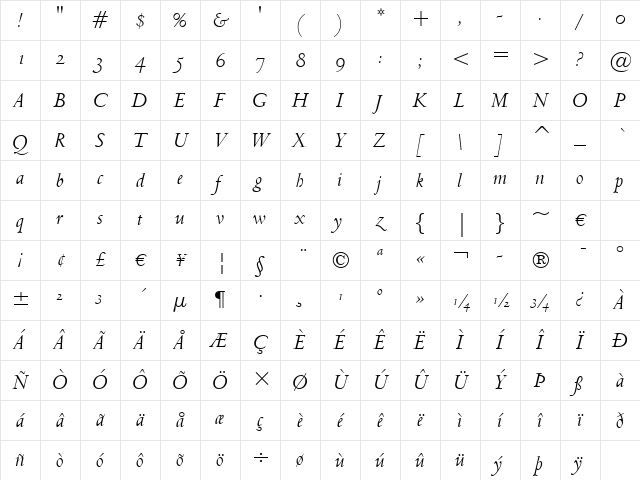
Venetian301 BT Italic
Design Context for Venetian301 BT
Venetian301 BT is a composed and adaptable typeface that performs quietly and consistently across a wide range of design contexts. The slanted form adds forward momentum and visual energy.
Pro Tip: Use Venetian301 BT for emphasis, pull quotes, and subheadings where its slanted energy can add rhythm to the layout.